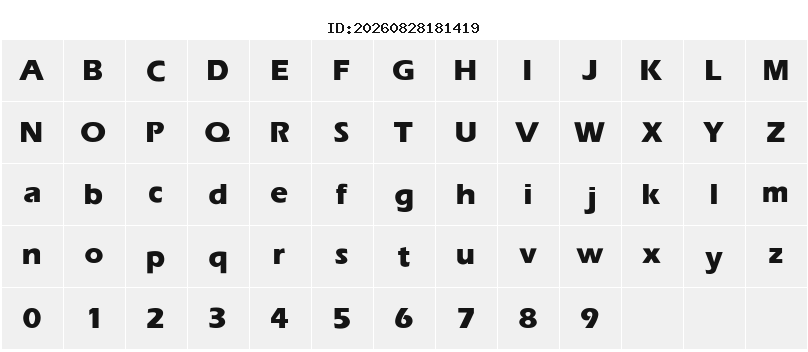
Tili-Bold.ttf is a modern, elegant sans-serif font designed for ultimate readability and visual harmony. Perfect for branding, headlines, web design, and print materials.